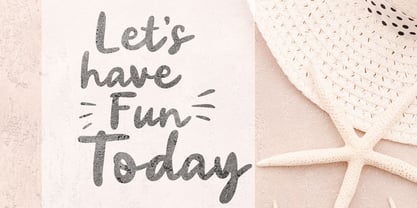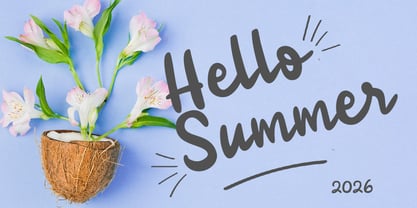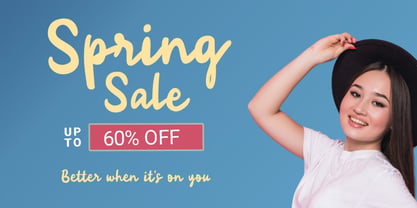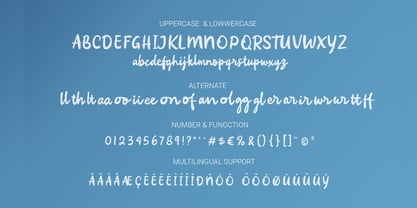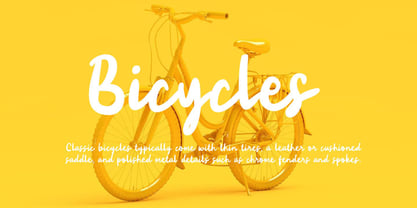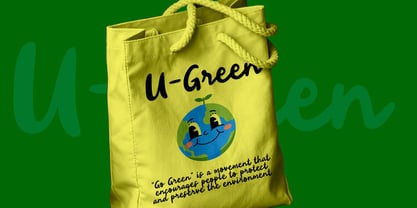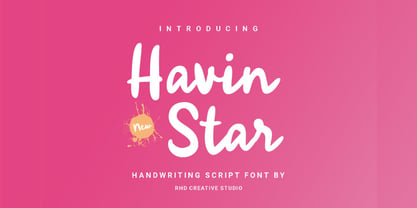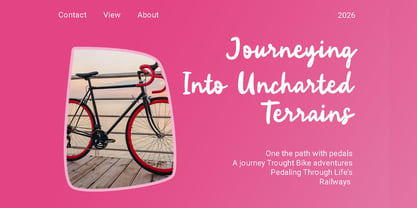
Havin Star
Hello everyone, I would like to introduce Havin Star - Handwriting Script Font. Havin Star - Handwriting Script Font with Handmade character. Havin Star - Handwriting Script Font, Modern font to make your design project stand out! Havin Star a perfectly choice for any creative endeavor, creating, modern, chic, lifestyle design such as logotype, title, cover, branding, invitations, wedding designs, display and magazine, social media posts, advertisements, printed quotes, product packaging, corporate brand, product designs, labels, photography, watermarks, special events and any other project with modern touch. Thank you for your purchase! Hope you enjoy with our font!